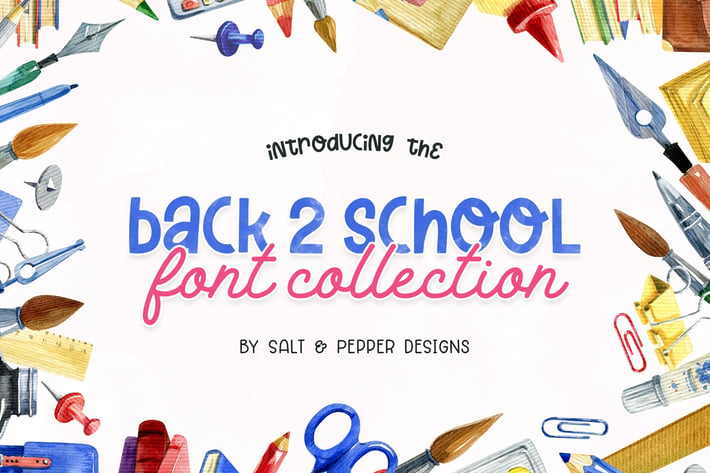
INTRODUCING The Back to School Font Collection. Eight gorgeous unique Hand drawn style fonts perfect for giving any project a handmade feel. All fonts work perfectly on Procreate, Canva Pro, Cricut, Silhouette, Photoshop and many more programs. These fonts cannot be purchased separately.